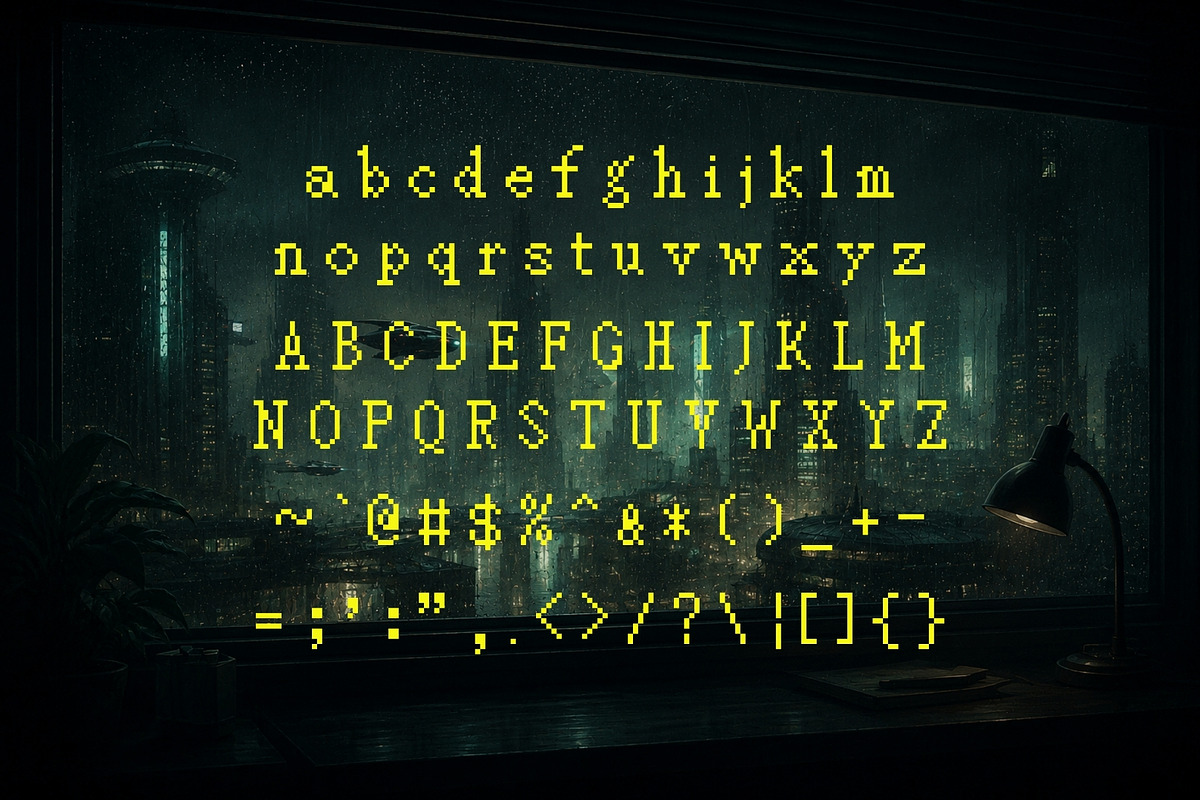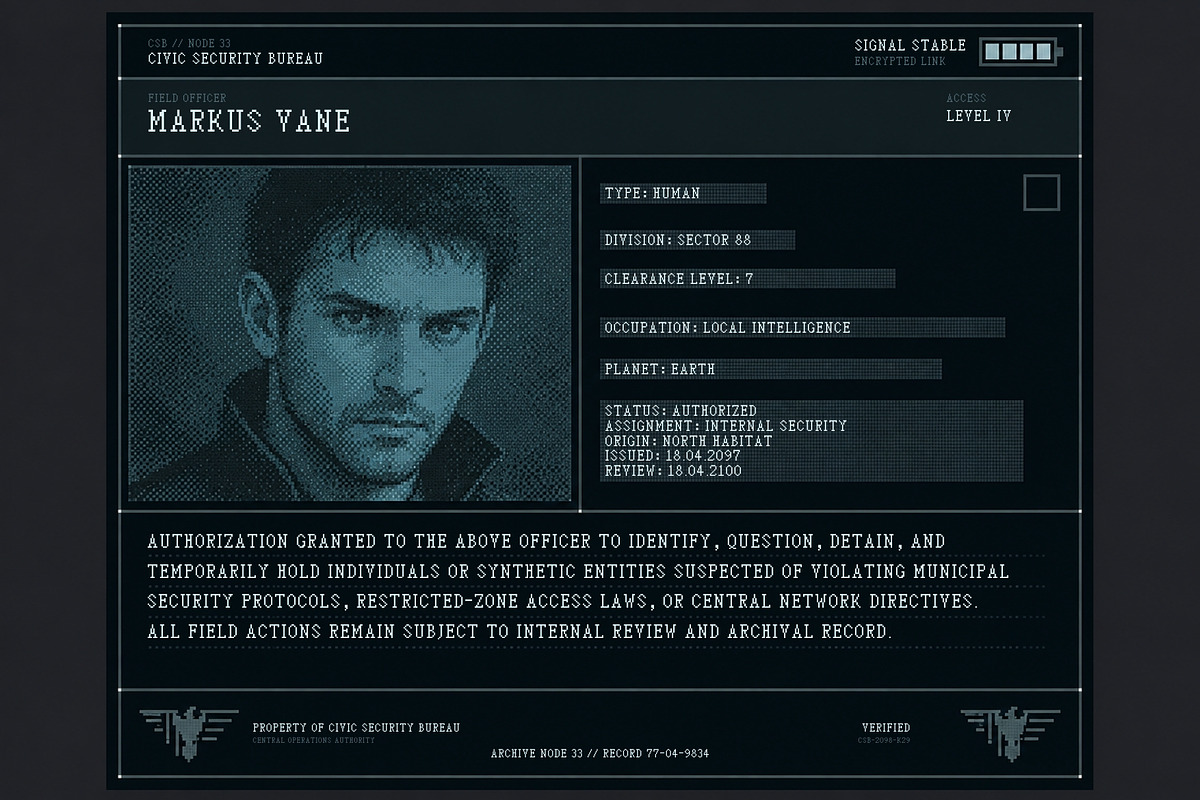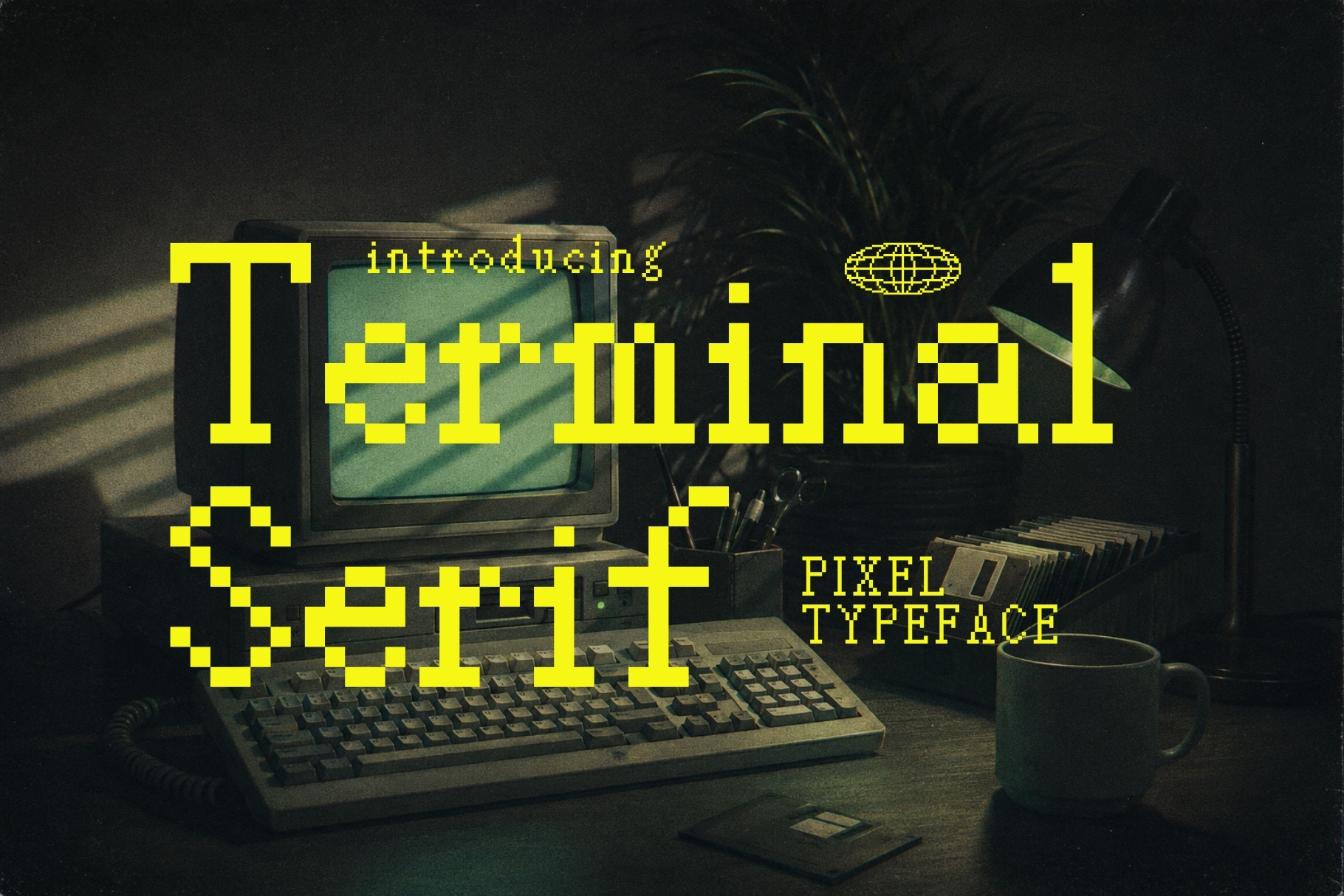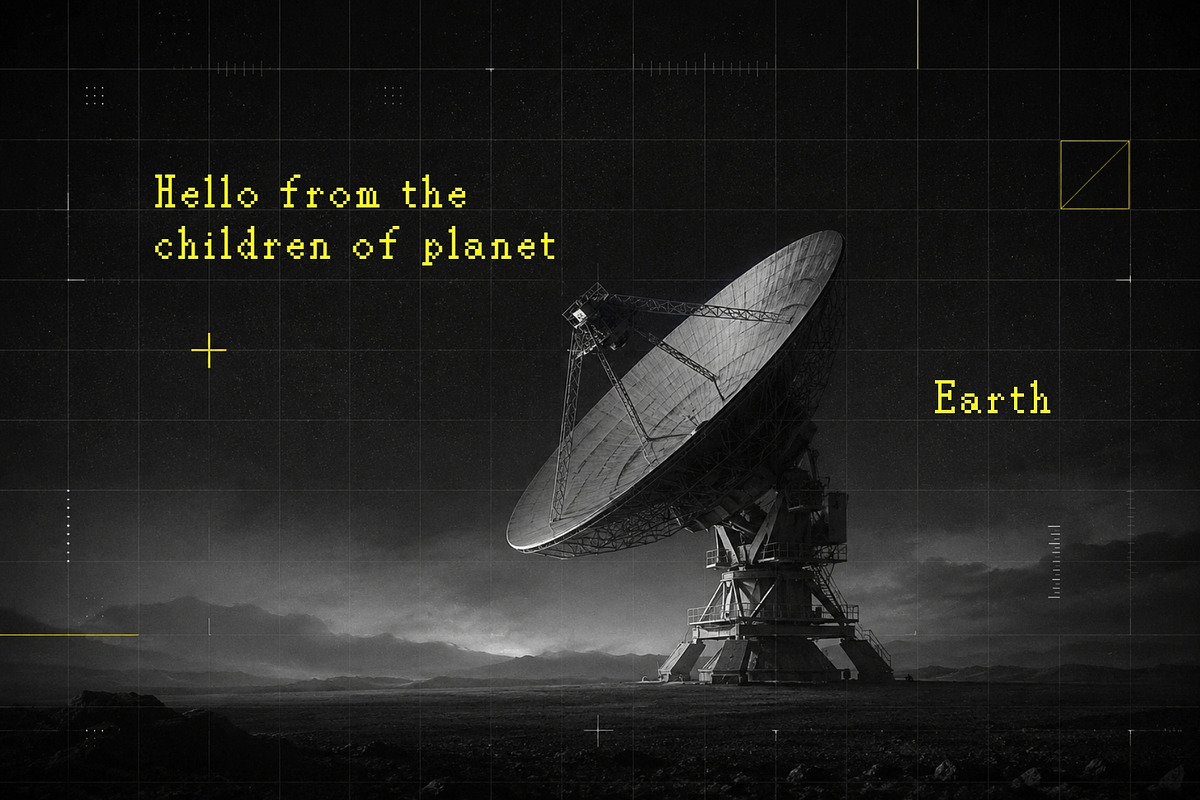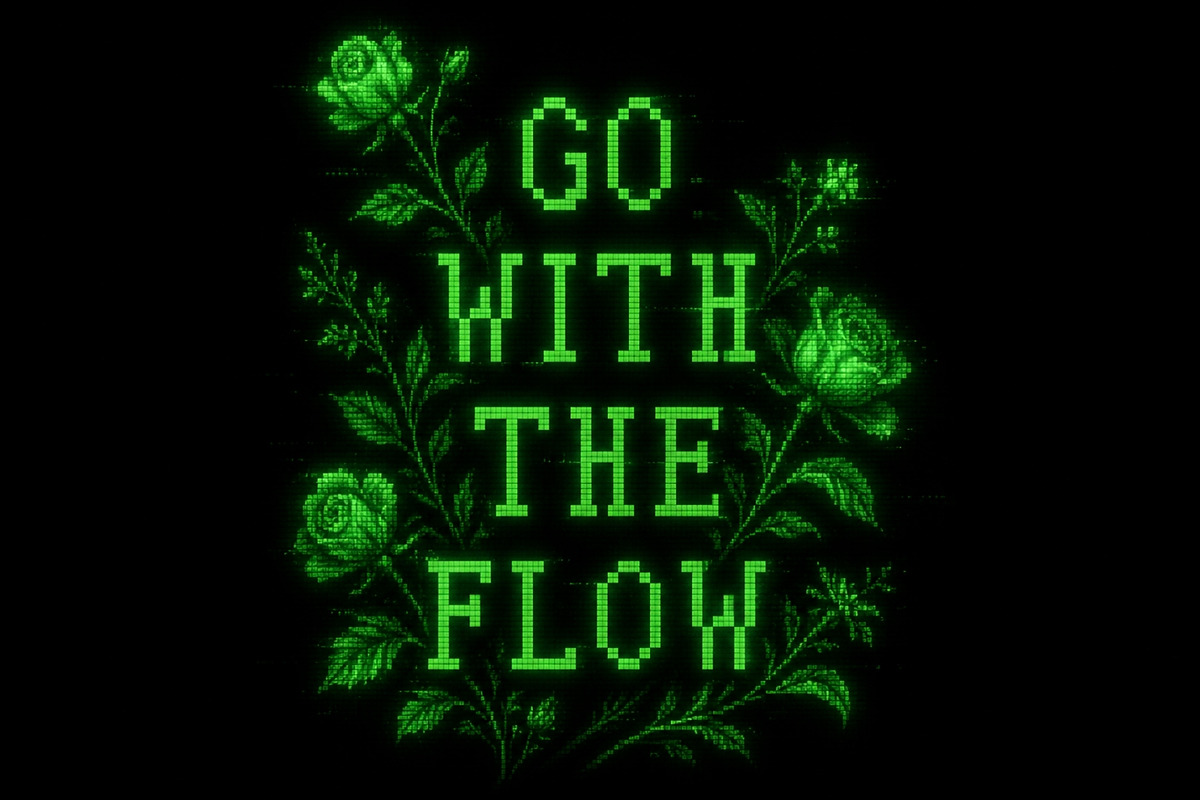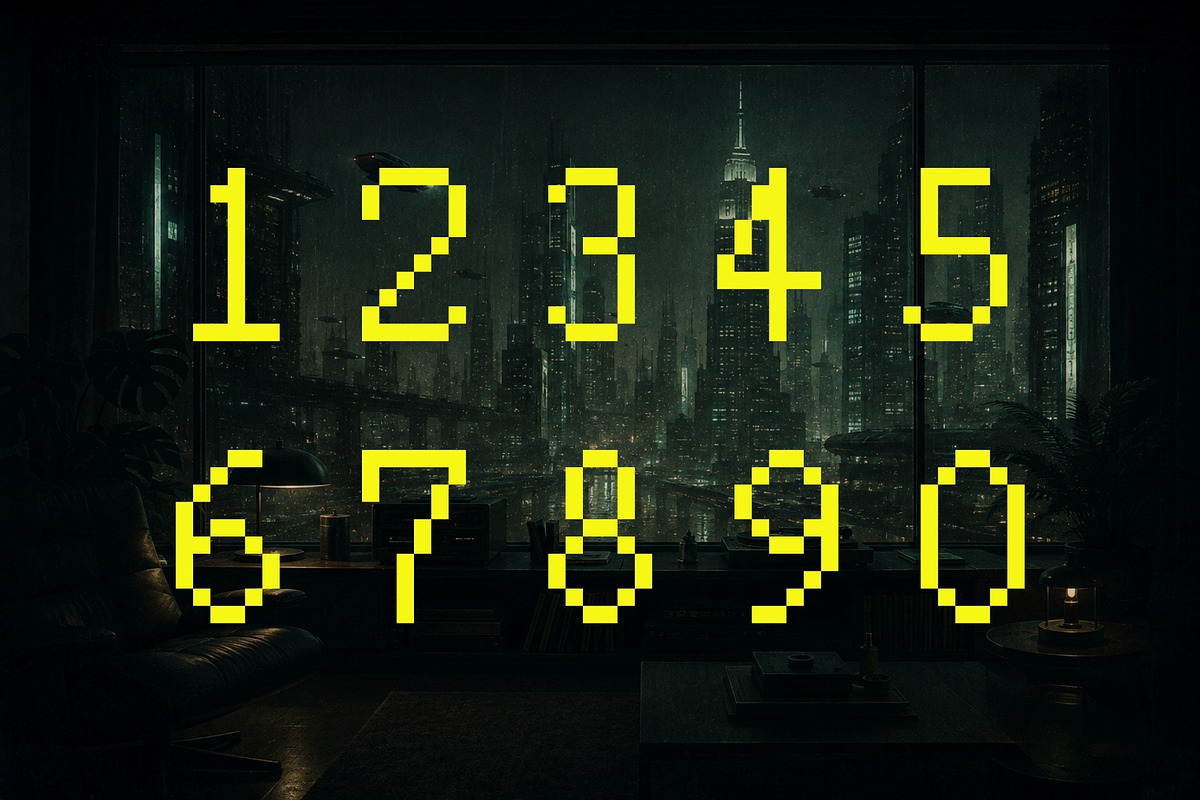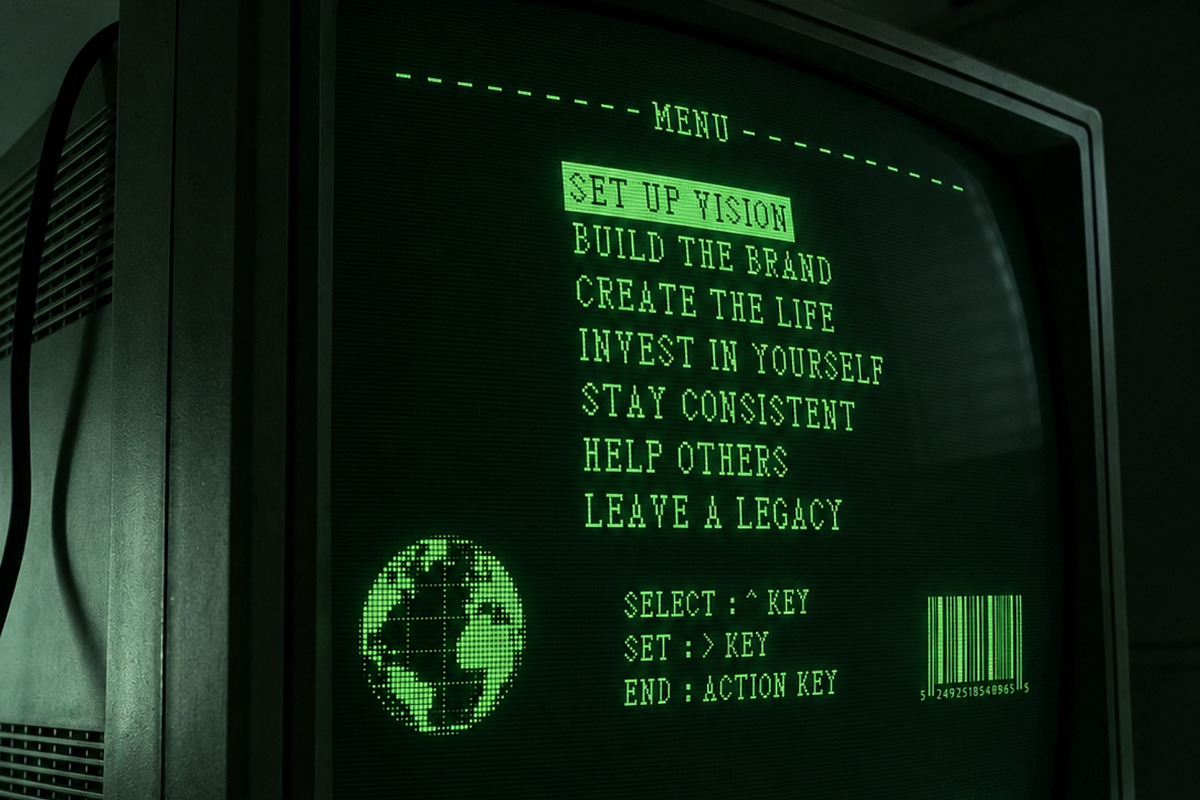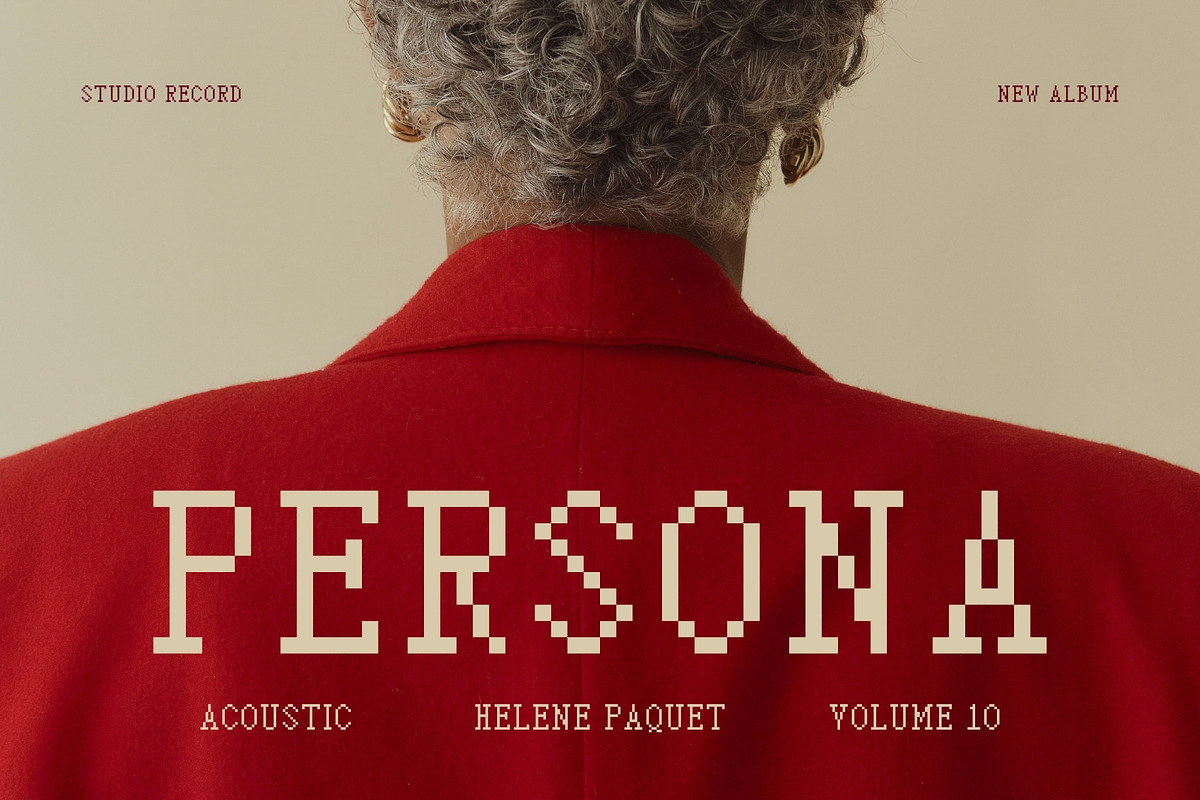
Terminal Serif - Y2K Pixel Typeface
Meet Terminal Serif, an 8-bit pixel typeface where old-school computing meets classic serif typography.
Inspired by glowing CRT monitors, early computer terminals, bitmap interfaces, floppy disks, vintage software, and the strange beauty of technology from another era, Terminal Serif combines crisp pixel construction with distinctive serif details for a look that feels both retro and surprisingly sophisticated.
Unlike typical blocky pixel fonts, Terminal Serif carries a more editorial personality. Its sharp serifs and digital geometry give it the character of a traditional typeface translated through an early computer screen—perfect for designers who want nostalgic technology aesthetics without sacrificing style.
Use Terminal Serif for branding, advertisements, graphic design, film titles, posters, album artwork, editorial layouts, video games, websites, packaging, social media graphics, technology projects, startup identities, and experimental typography.
It works beautifully across retro-futuristic campaigns, indie games, sci-fi artwork, hacker-inspired visuals, computer-themed branding, Y2K graphics, digital publications, and anything that needs the unmistakable character of vintage computing.
Whether you're recreating the atmosphere of a forgotten operating system, developing a futuristic brand with roots in the past, or designing a cinematic title that looks like it flickered onto an old terminal at midnight, Terminal Serif gives your typography a distinctive digital voice.